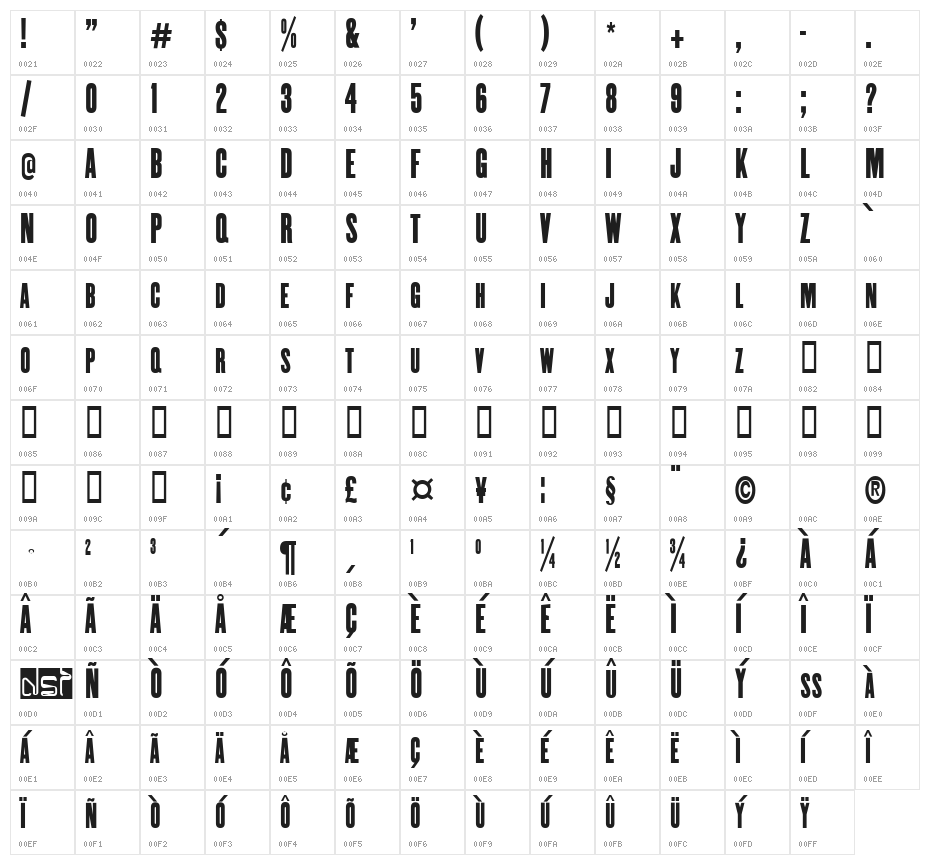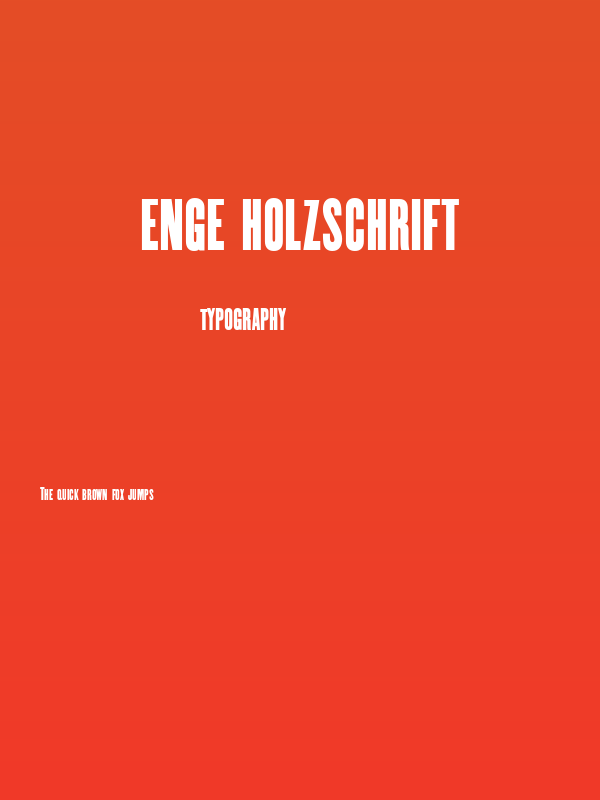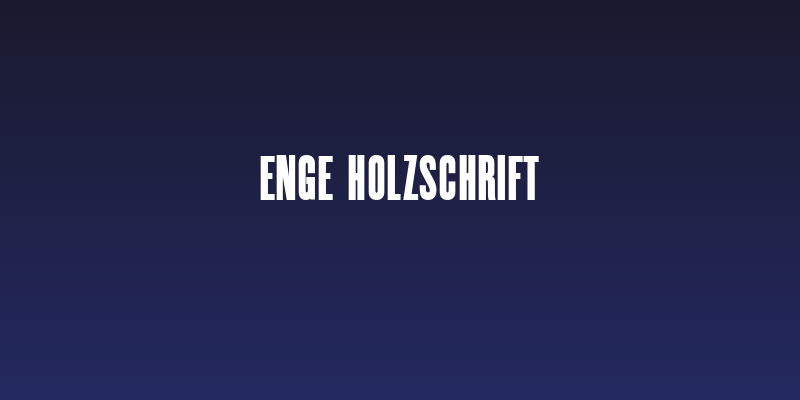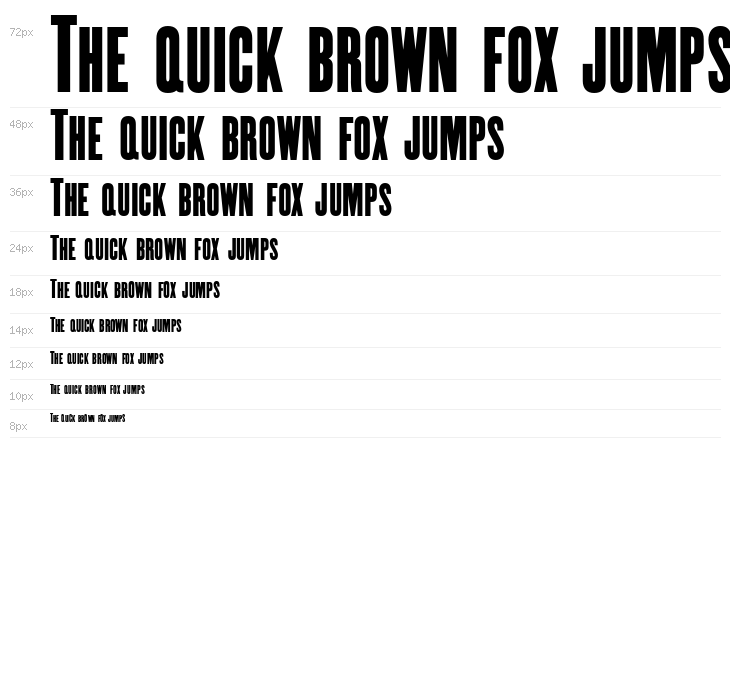
Enge Holzschrift Font
Enge Holzschrift Description
This font exhibits a bold and impactful style, characterized by its thick, uniform strokes and condensed letterforms. The uppercase and lowercase letters maintain a consistent weight, contributing to a strong visual presence. The numbers and special characters are equally robust, ensuring legibility and emphasis. The overall design is straightforward yet powerful, making it suitable for attention-grabbing headlines and signage. Its condensed width allows for efficient use of space without sacrificing readability.
| Use Case | Headlines, Logos, Signage |
| Proposed Projects | This font is perfect for posters, banners, and any design requiring a bold statement. It can also be used in branding materials where a strong, memorable impression is needed. |